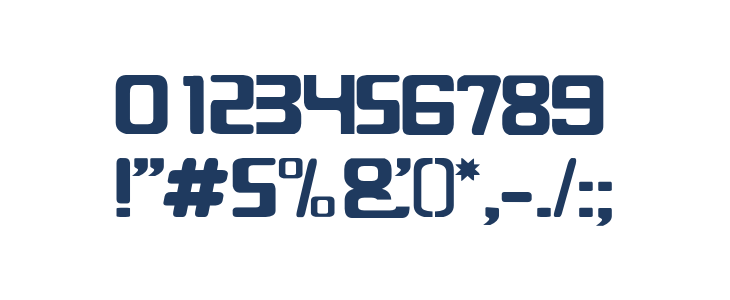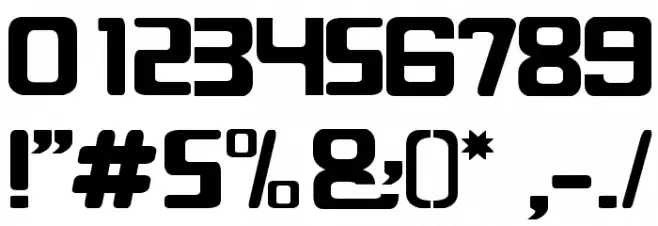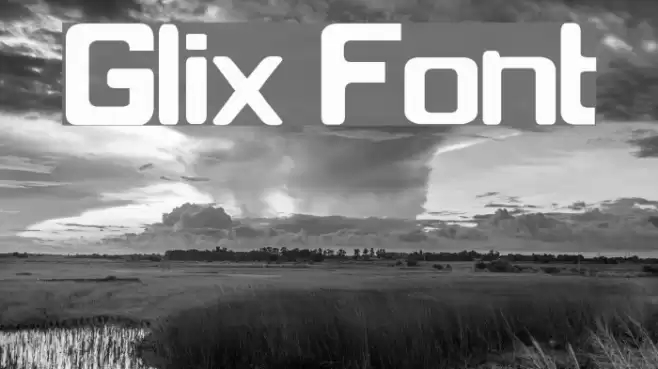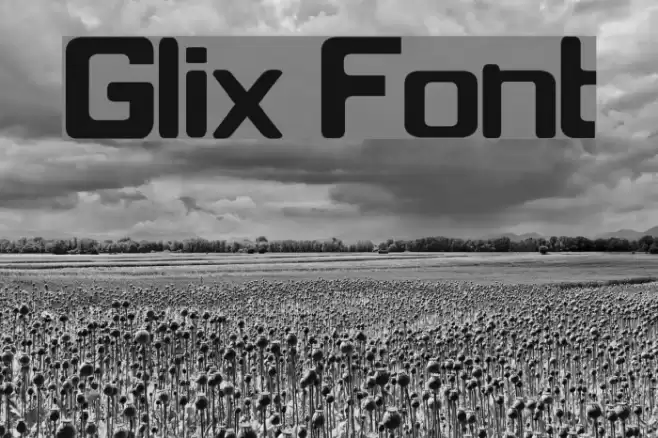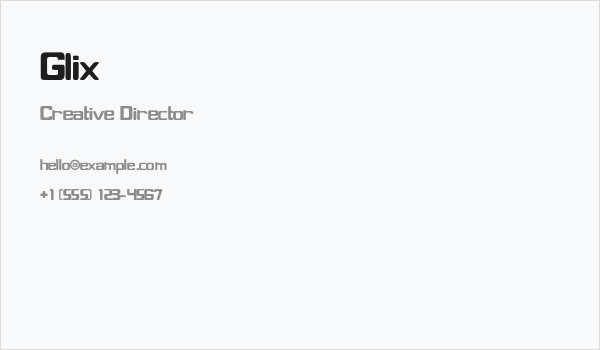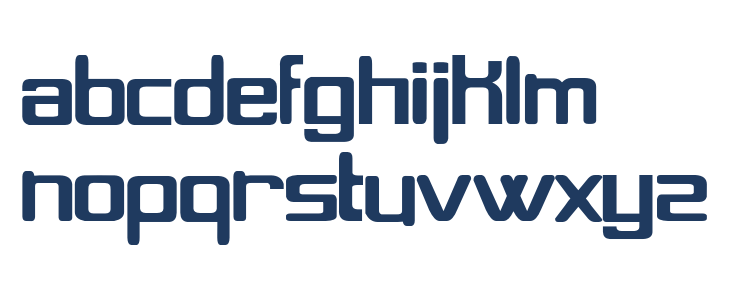
Glix Font
Glix Description
This font features a bold and modern design with a distinct geometric style. The characters are constructed with thick, uniform strokes that give a strong and impactful appearance. The uppercase and lowercase letters maintain a consistent width, contributing to a cohesive look. The numbers and special characters follow the same design principles, ensuring uniformity across all elements. The font's style is suitable for creating eye-catching headlines and logos, where a contemporary and robust aesthetic is desired. Its clean lines and structured form make it versatile for various design applications.